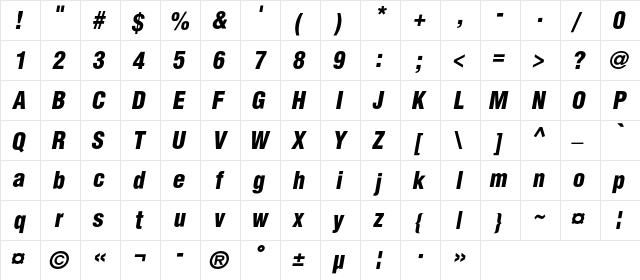
AGLettericaDemiCondensedC Italic Font Preview
Design Context for AGLettericaDemiCondensedC Typeface
AGLettericaDemiCondensedC is a composed and adaptable typeface that performs quietly and consistently across a wide range of design contexts. The slanted form adds forward momentum and visual energy. The condensed width makes it efficient for tight spaces without sacrificing legibility.
Pro Tip: Try AGLettericaDemiCondensedC for annotation and caption copy alongside an upright companion — the contrast in angle creates a dynamic but ordered typographic system.